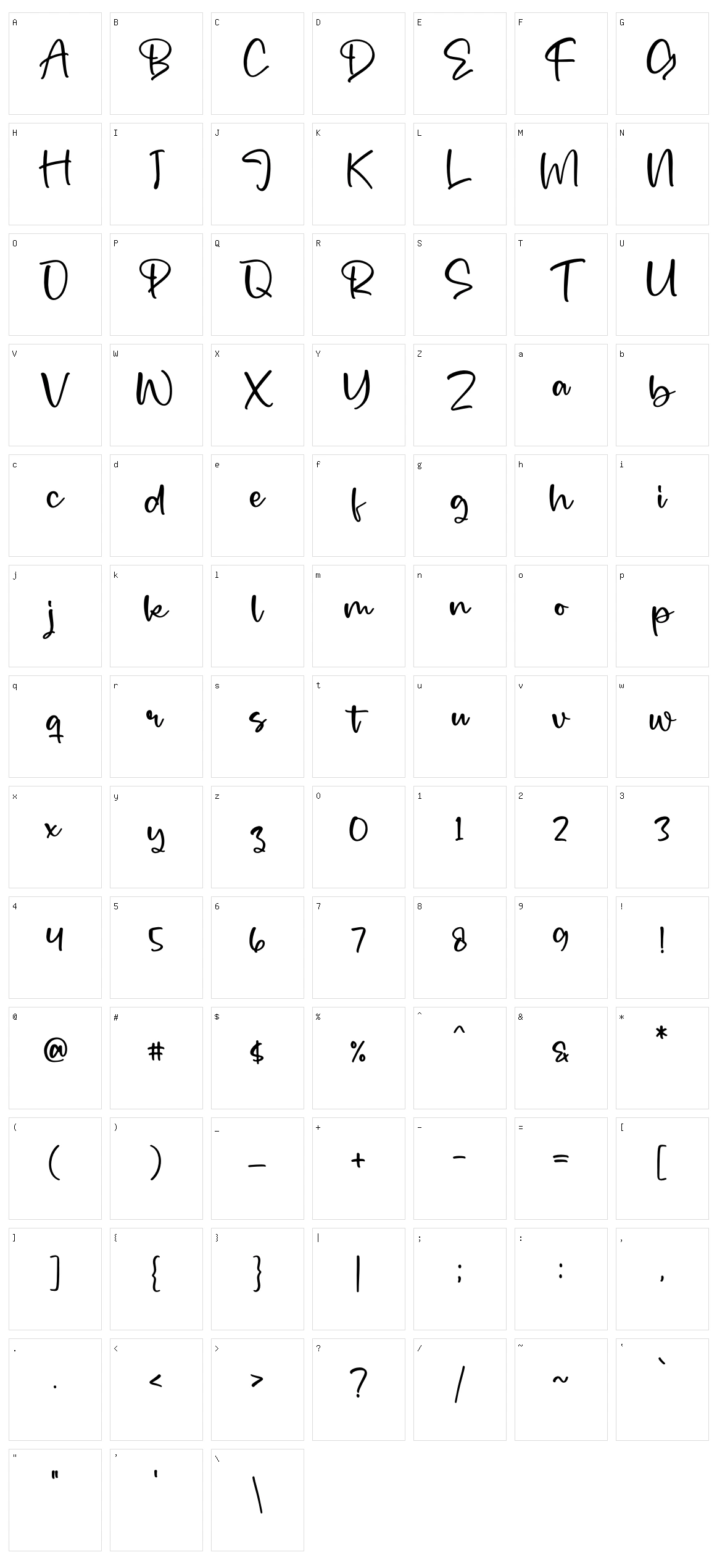
The free font Mergolla Beauty is carefully designed by Perspectype Studio - Letterena.com, showcasing a thoughtful balance of creativity and usability and falls under the Script font style. When you download the ZIP file, it contains only 41.72 KB of font files, making it lightweight and quick to download. Please review the license details below to understand permitted usage and distribution rights. If license information is not available, we recommend using this font for personal projects only or contacting the author directly for commercial usage permissions.